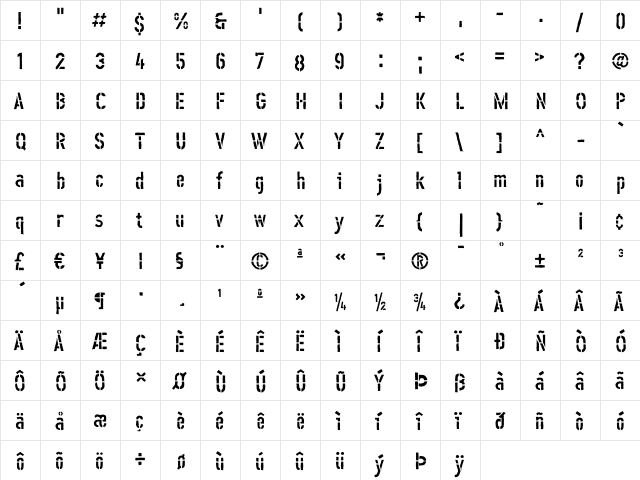
Offline Rough
| Style | Rough |
Design Context for Offline Typeface
Offline embraces imperfection — its rough, textured character adds raw authenticity to designs that want to feel lived-in and unconventional.
A strong fit for alternative music projects, graffiti-adjacent design, and anything that deliberately resists polish.
Pro Tip: Use Offline at larger sizes where the texture and irregularity of each letterform can be clearly seen — it loses its character at small sizes.